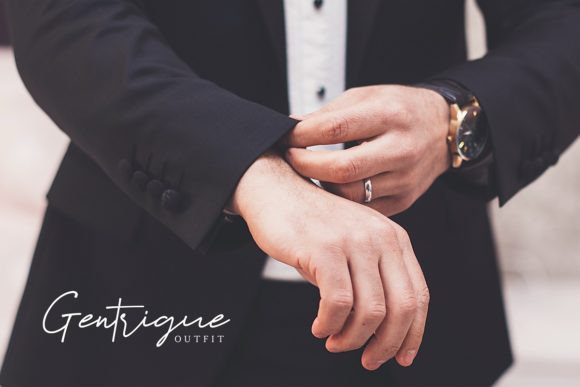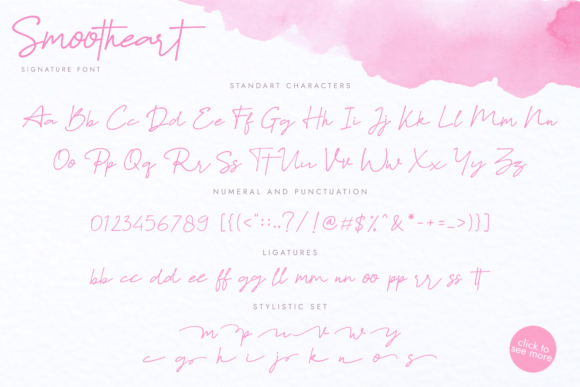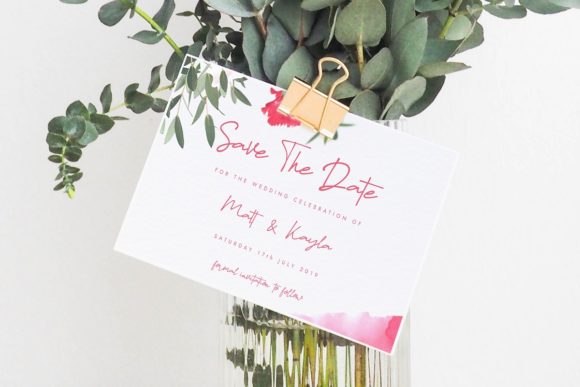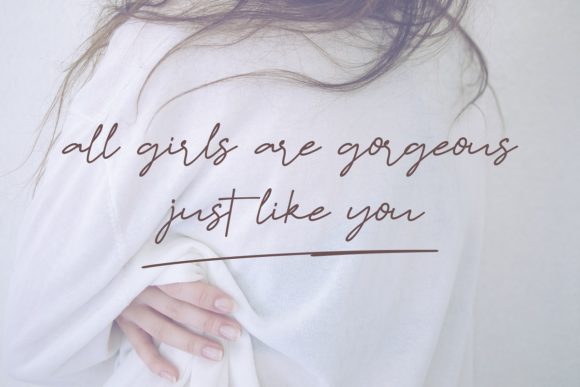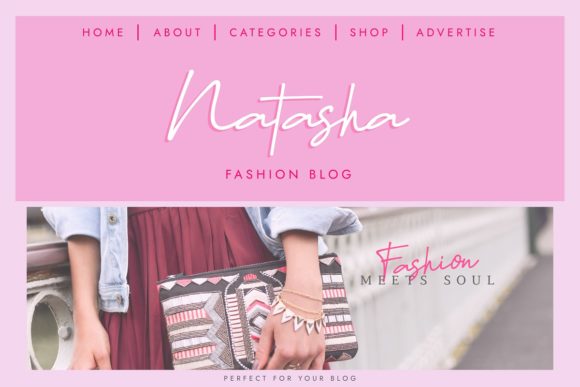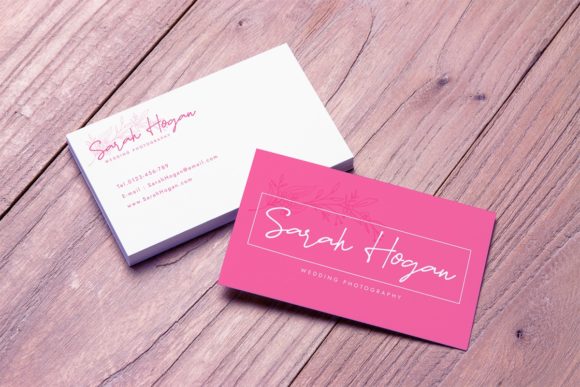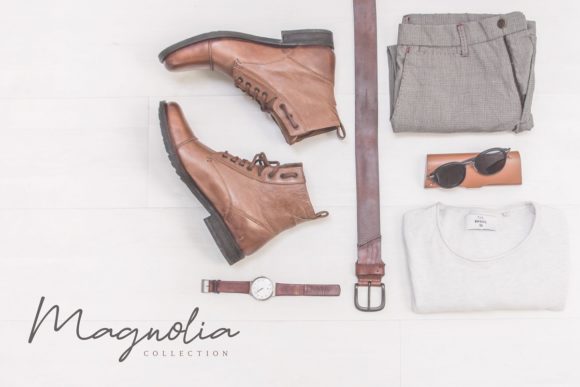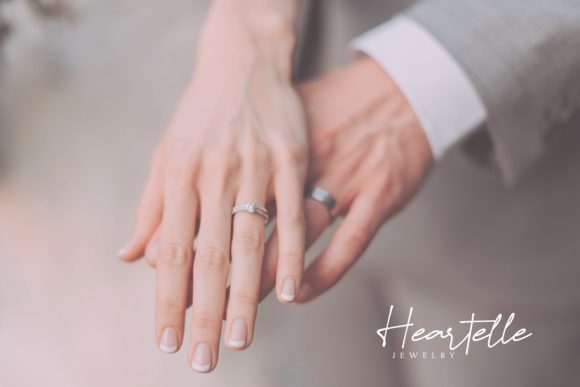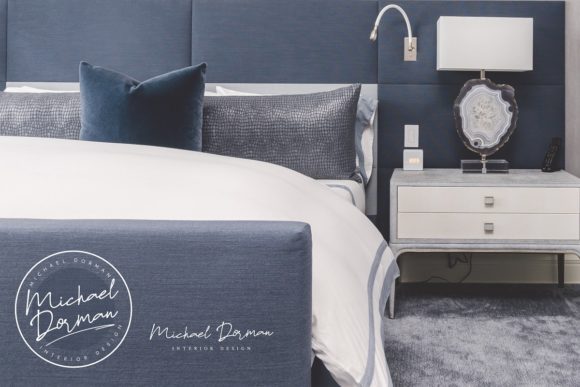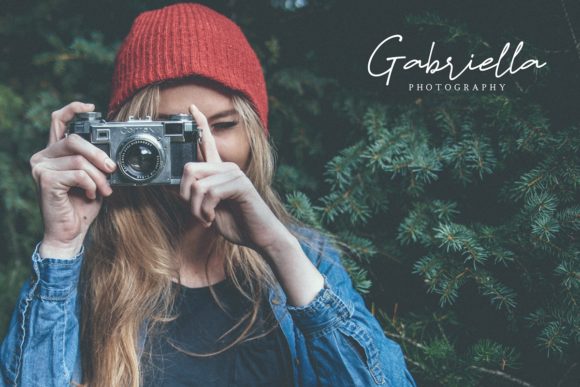
Smootheart Font
About Smootheart Font
Smootheart is a casual, yet elegant handwritten font. Get inspired by its unique feel, and turn any design project into a standout!